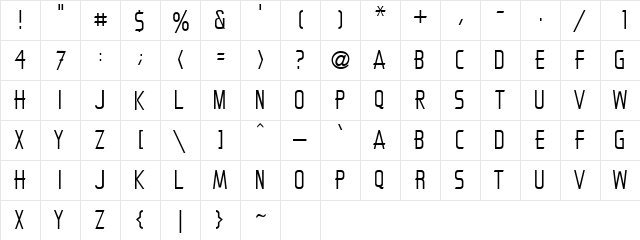
Antartic Regular
Design Context for Antartic Typeface
Antartic takes a measured approach to typography — its balanced proportions and neutral character make it a reliable workhorse for both digital and print work.